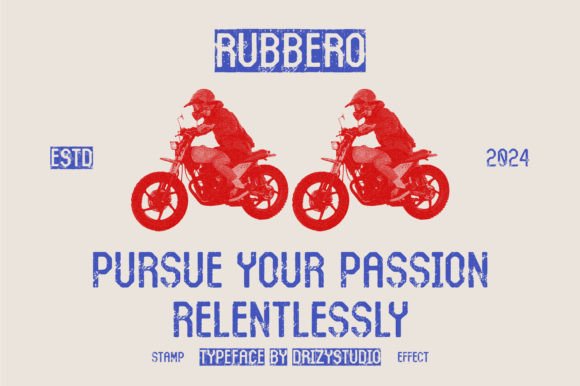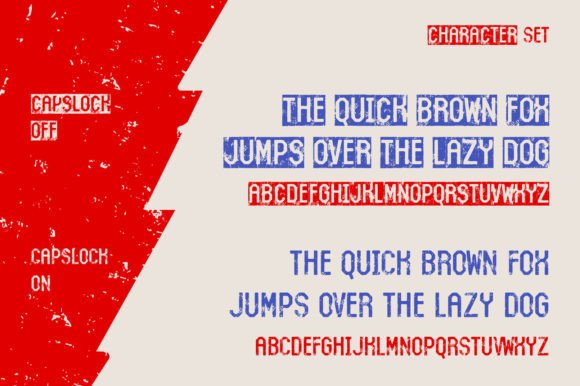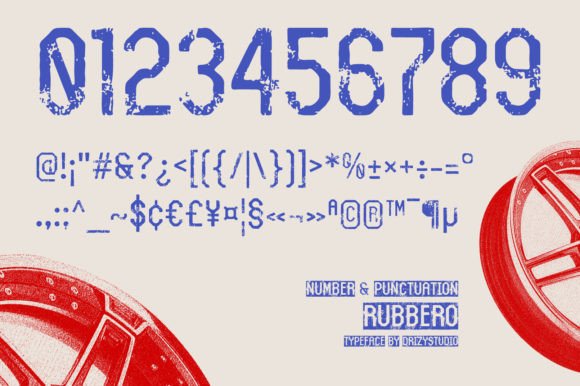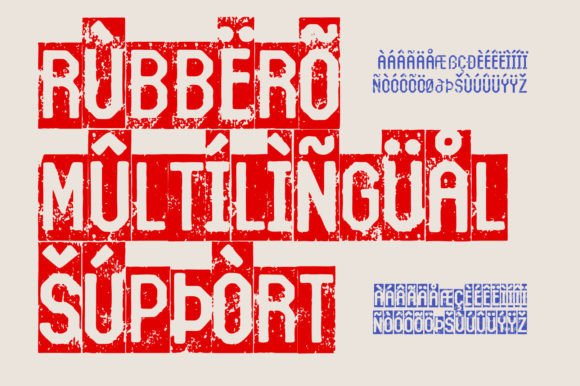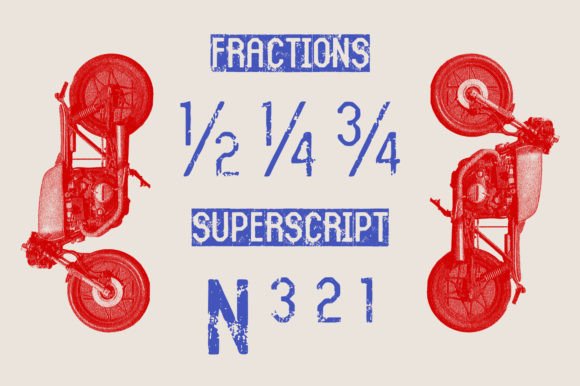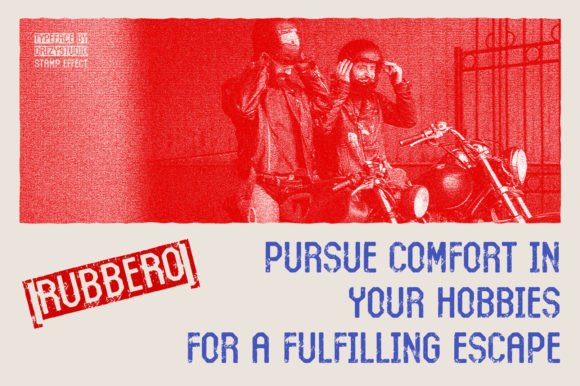
Introduction to Rubbero Font
Have you ever been stuck on a creative project, searching for the perfect font to bring your idea to life? I know I have. One moment that stands out was when I was working on a branding project for a local artisan. I wanted to give their brand a vintage feel, something that would transport customers back in time. That’s when I stumbled upon the Rubbero Font – a game-changer in my design process.
The Rubbero Font is a high-quality, condensed style that’s perfect for designs requiring a compact and impactful aesthetic. Its rubber stamp-inspired appearance adds a touch of authenticity and nostalgia, making it a valuable resource for designers. With its transparent background and free download option, it’s an excellent choice for any creative project. Whether you’re working on a digital or print application, the Rubbero Font is sure to add personality and charm to your design.
Key Features of Rubbero Font
- High-quality typography with a unique, modern design.
- Transparent background, making it ideal for creative projects that require a clean and minimalist look.
- Supports Latin and Cyrillic alphabets, making it a versatile font for multilingual projects.
- Perfect for creative projects such as branding, logos, and typography-based designs, where a unique and modern font is required.
Honest Review: Rubbero Font
I recently had the opportunity to work with the Rubbero Font, and I must say it’s been a game-changer for my creative project. The high quality of the font is immediately noticeable, and the transparent background makes it incredibly versatile.
- ✨ The Rubbero Font is extremely legible, making it perfect for body text in any design.
- ✨ The font is highly customizable, allowing me to tweak it to fit my project’s unique style.
- Limitations:
- ⚠️ The font may not be suitable for projects requiring a more formal or traditional aesthetic.
Overall, I’m thoroughly impressed with the Rubbero Font. It’s a fantastic addition to any designer’s toolkit, and I would highly recommend it to anyone looking for a high-quality, free font to enhance their creative project.
Tips for Getting the Most Out of Rubbero Font
Use the Rubbero Font with a transparent background to create a modern and sleek design. Experiment with different font sizes and colors to add visual interest to your project.
The Rubbero Font is perfect for:
- Logo designs
What makes the Rubbero Font unique?
The Rubbero Font stands out with its unique design and transparent background, making it perfect for designers who want to add a touch of elegance and sophistication to their work. Its high-quality design ensures that it will look great on any background, whether it’s a solid color or an image.